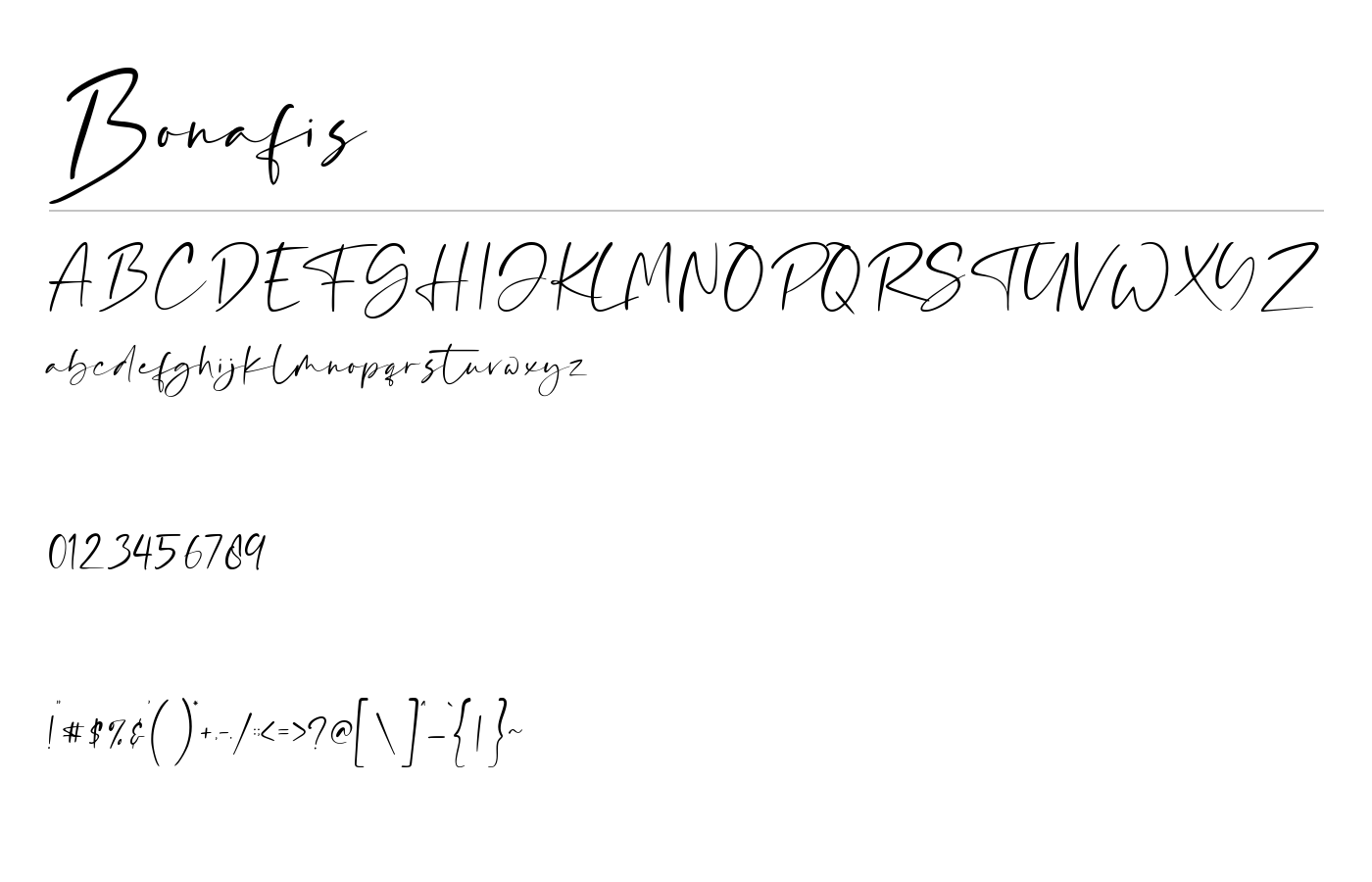
Bonafis is a stylish handwritten script font with elegant, flowing letterforms and a light, delicate weight. Its slender, slightly whimsical strokes give it a personal, approachable feel, making it ideal for creative branding, invitations, and modern editorial designs that seek a refined yet casual touch. This font works beautifully in contexts where a warm, artistic atmosphere is desired, balancing sophistication with friendly charm.
Bonafis Font